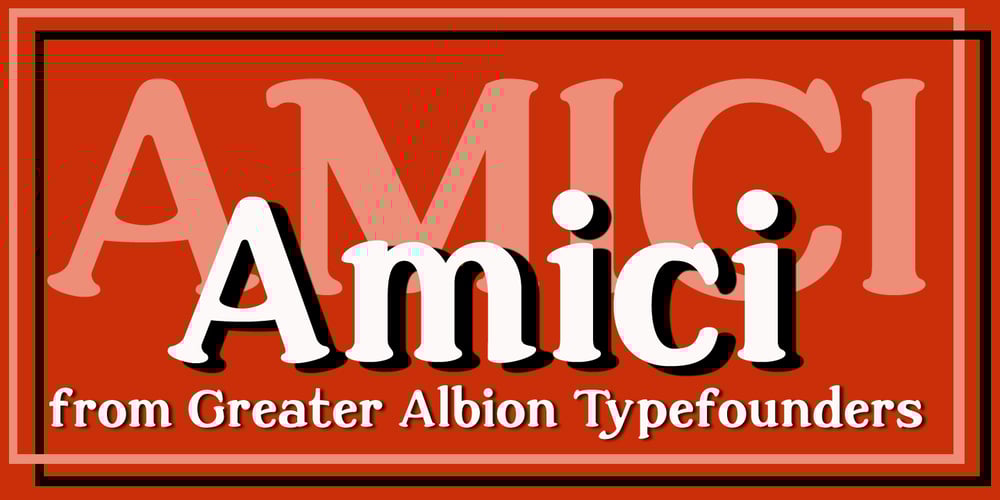
Amici
Amici font
Amici Font Family was designed by Paul James Lloyd and published by Greater Albion Typefounders. Amici contains 3 styles and family package options. Amici means ‘friends’ and the Amici family was conceived as a big friendly Roman typeface for headings, posters, signs and anywhere else that an approachable easy-reading typeface is needed. It’s the sort of thing you used to see in Magazine mastheads before everything went boringly sans serif. Three faces are offered within the family, Regular – solid and clear, Bold – with that bit more body and presence and italic – bringing in script elements to its design.